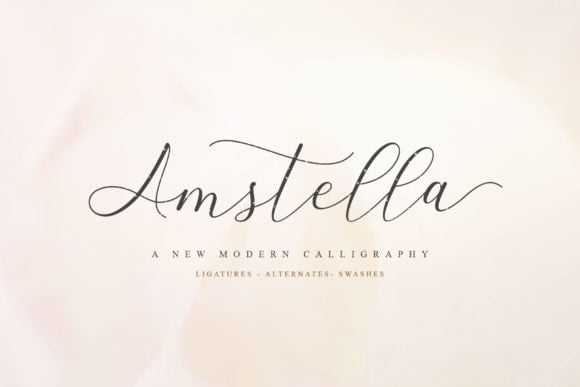
Amstella Font
“Amstella Font” is a modern handwritten font with elegant signature-style. This font has a very beautiful movement, dynamic dah certainly very elegant.